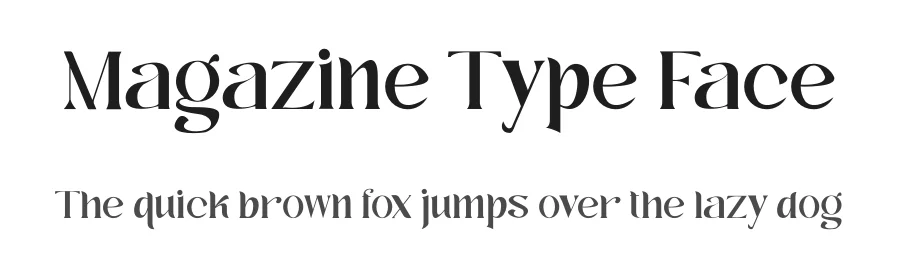
About Salitia Font
- Bold, Classic, Refined, Basic
Salitia Font is a versatile serif font that works for both headings and body text. Pair it with a contrasting sans-serif or slab serif font to add visual interest and a clear distinction between titles and body copy.
Salitia Font